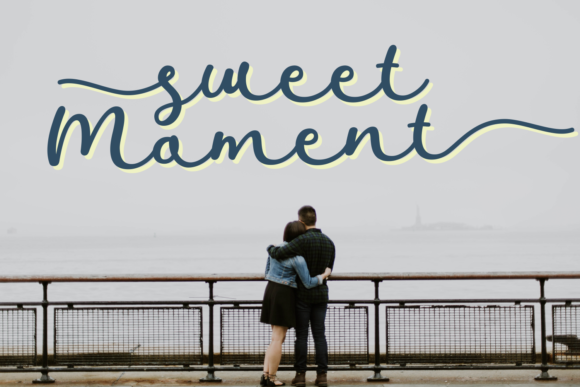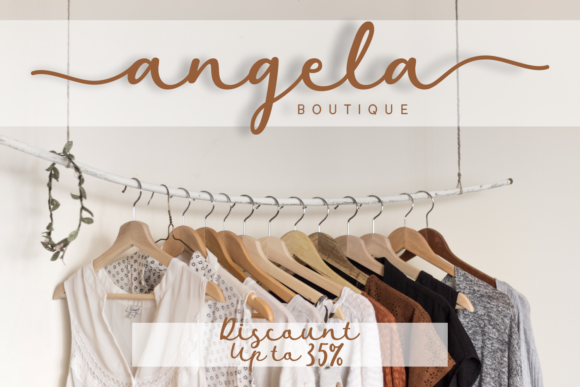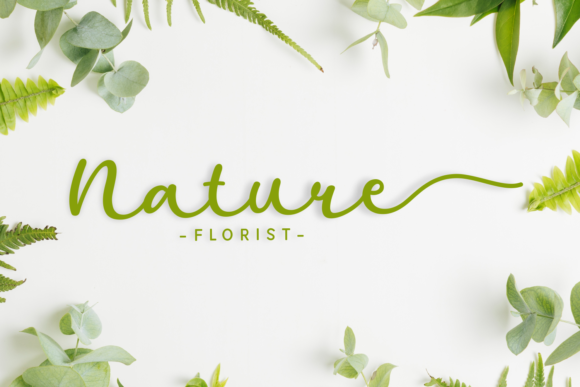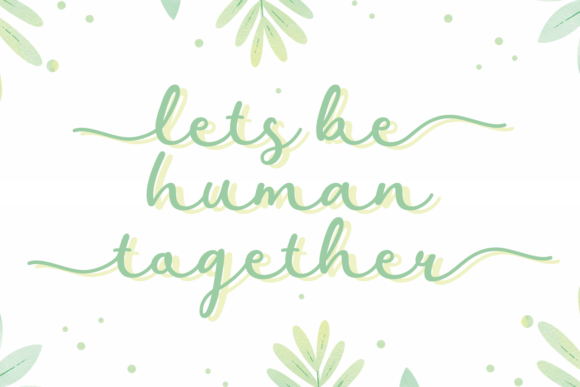
Introduction to Labun Font
Have you ever found yourself in the midst of a creative project, desperately searching for the perfect font to bring your vision to life? The hunt for the ideal design resource can be a daunting task, especially when you’re looking for something that exudes elegance and sophistication. But what if I told you that you’ve been missing out on a game-changing font that’s sure to elevate your designs to the next level?
Enter the Labun Font, a stunning handwritten font that’s perfect for adding a personal touch to your wedding invitations, thank you cards, quotes, and logos. With its gorgeous glyphs, stunning alternates, and varying baseline, this font is a designer’s dream come true. And the best part? It’s PUA encoded, making it easy to access all of the glyphs and swashes you need to create high-quality designs.
Key Features of Labun Font
- High-quality design resource for creative projects: Labun Font offers a unique and stylish typography that can elevate any design.
- Transparent background: This feature allows for seamless integration with any background, making it perfect for graphic design, digital art, and more.
- Unique characteristics: Labun Font features a distinctive and modern design, making it perfect for designers looking to add a touch of sophistication to their creative projects.
Honest Review: Labun Font
I recently had the opportunity to work with the Labun Font, a free download that’s been making waves in the design community. As a designer, I’m always on the lookout for high-quality resources to elevate my creative projects, and I was excited to see how this font would stack up.
What works well: ✨ The Labun Font is incredibly versatile, with a unique blend of modern and vintage flair that lends itself perfectly to a wide range of design applications. I particularly appreciated its ability to be used with transparent backgrounds, which adds an extra layer of depth to any project.
- High quality and detailed, making it perfect for print or digital use
Limitations: ⚠️ While the Labun Font is overall a solid choice, I did encounter some issues with font consistency across different platforms. This may require some additional troubleshooting to get everything looking just right.
Overall, I’m impressed with the Labun Font and would definitely recommend it to fellow designers looking for a high-quality, free download. With its unique style and versatility, it’s a great addition to any design resource library.
The Labun Font is a high-quality design resource perfect for any creative project. With its unique style and transparent background, it adds a touch of sophistication to any design.
Tips for Getting the Most Out of Labun Font
To get the most out of Labun Font, use it in combination with other design elements, such as images and graphics, to create a visually appealing design. Experiment with different font sizes, styles, and colors to find the perfect combination for your design.
Project 2: Watercolor-Inspired Quote Graphic
Project 3: Editorial Design Layout